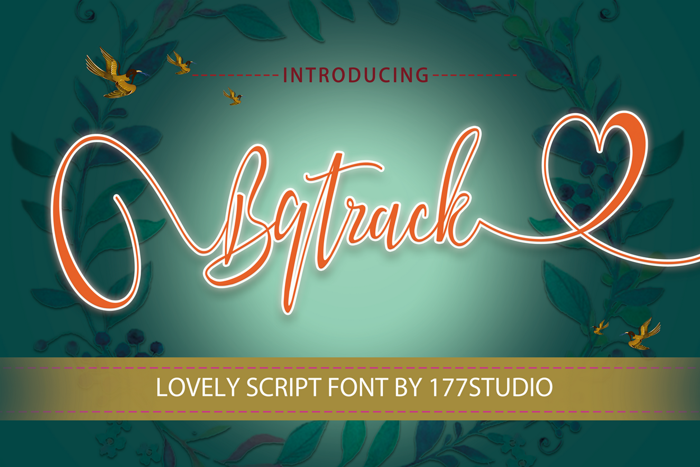
Bqtrack Script Font
Bqtrack Calligraphy Script Font is calligraphy script font with hand lettering style. This font looks cool in any design and very recommended for logo, poster, branding, quote, or anything else that needs a touch of elegance.